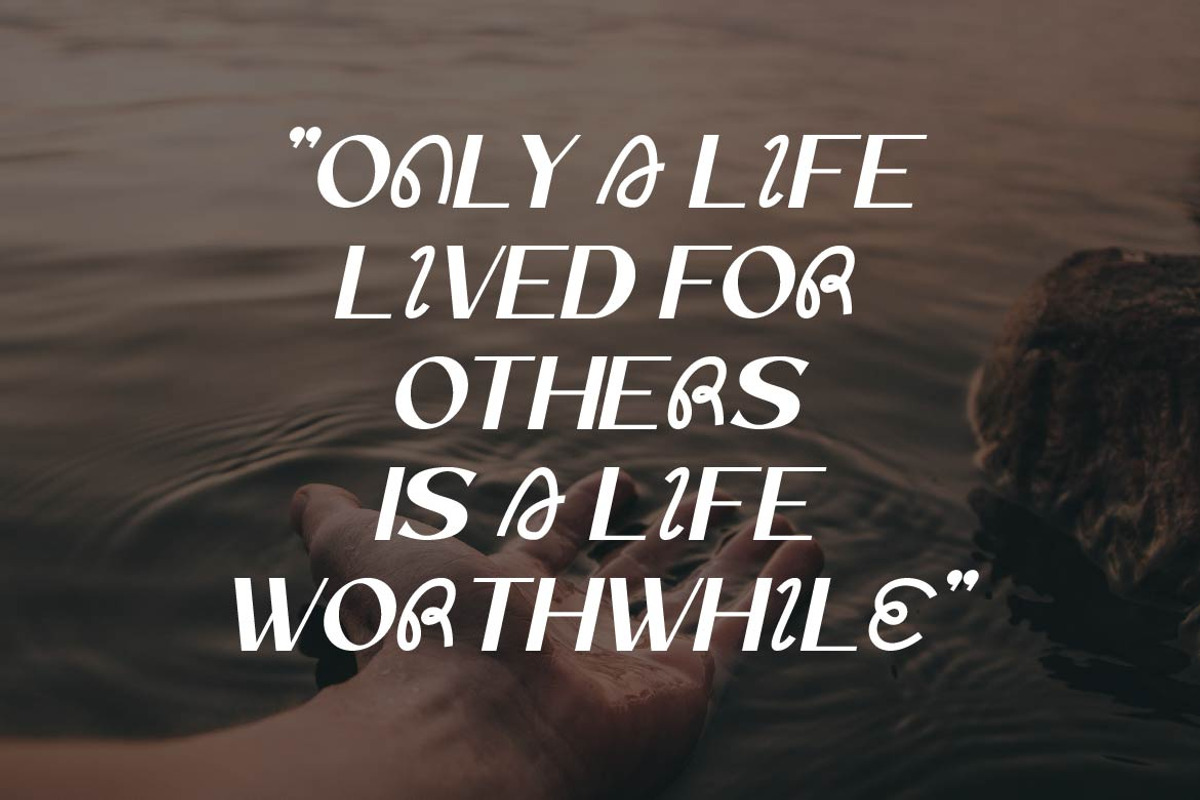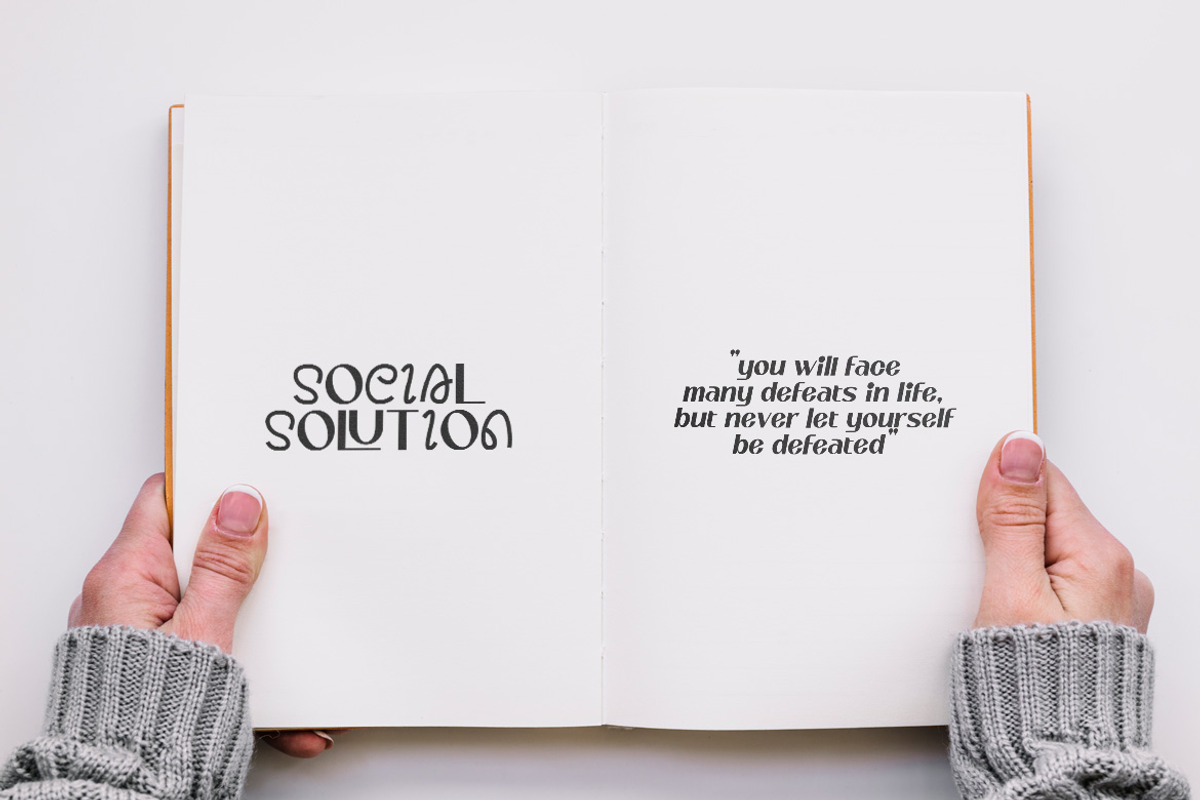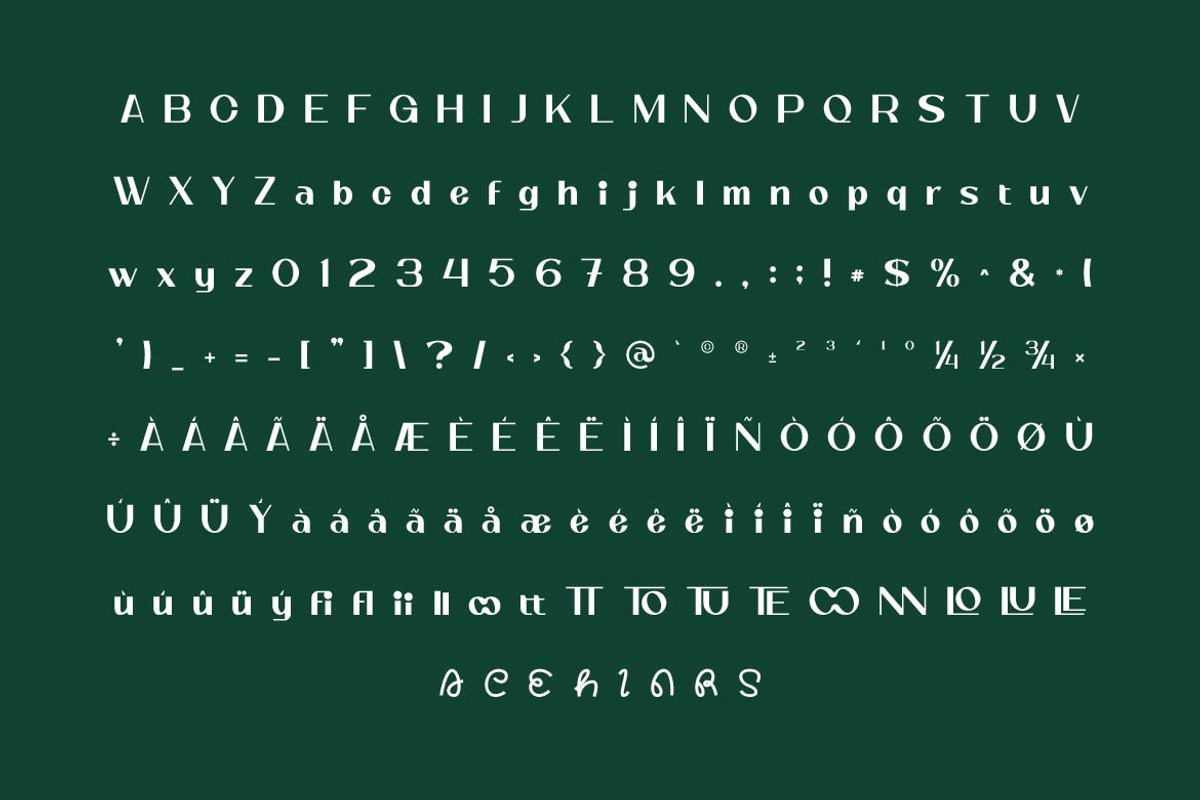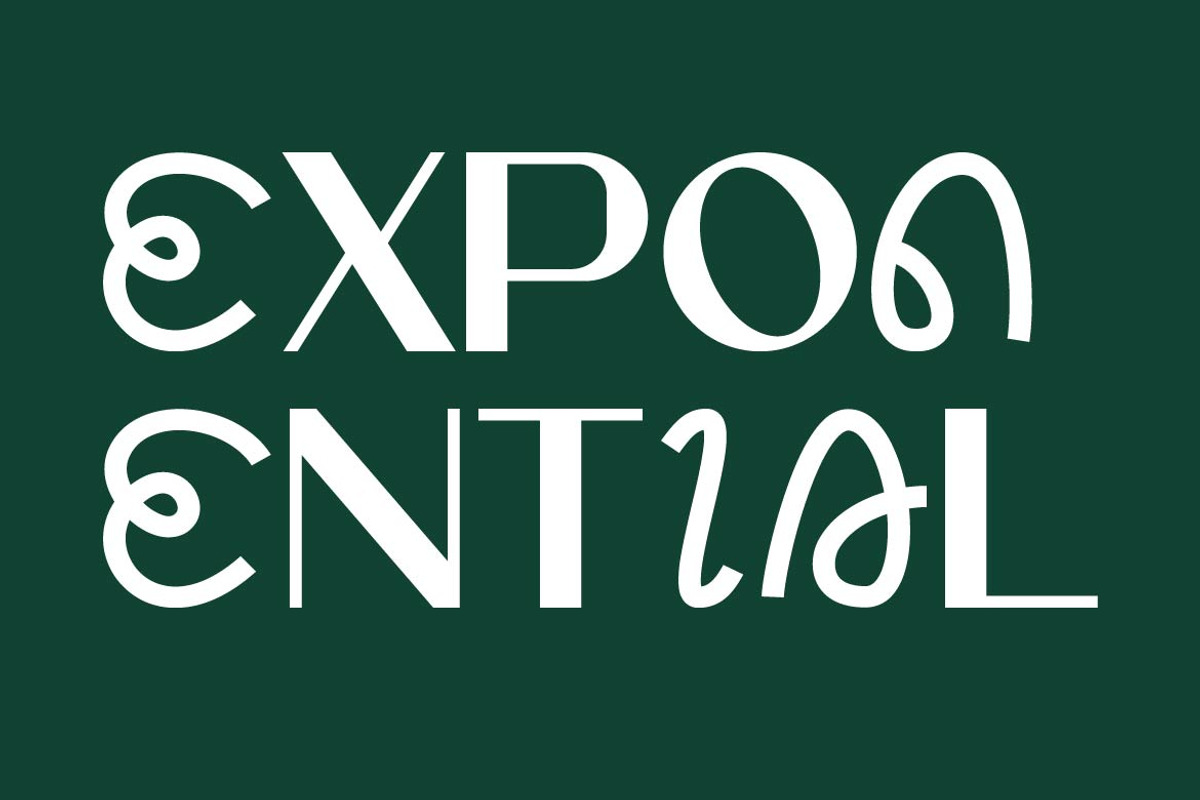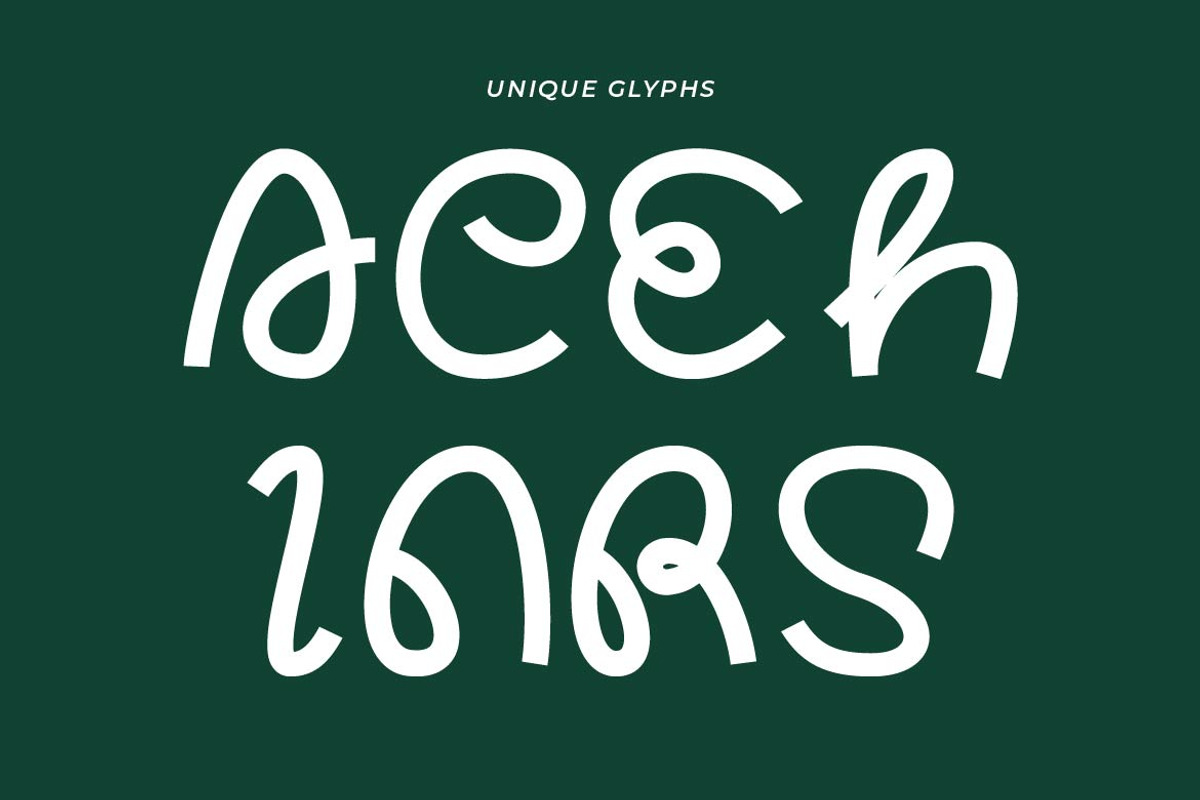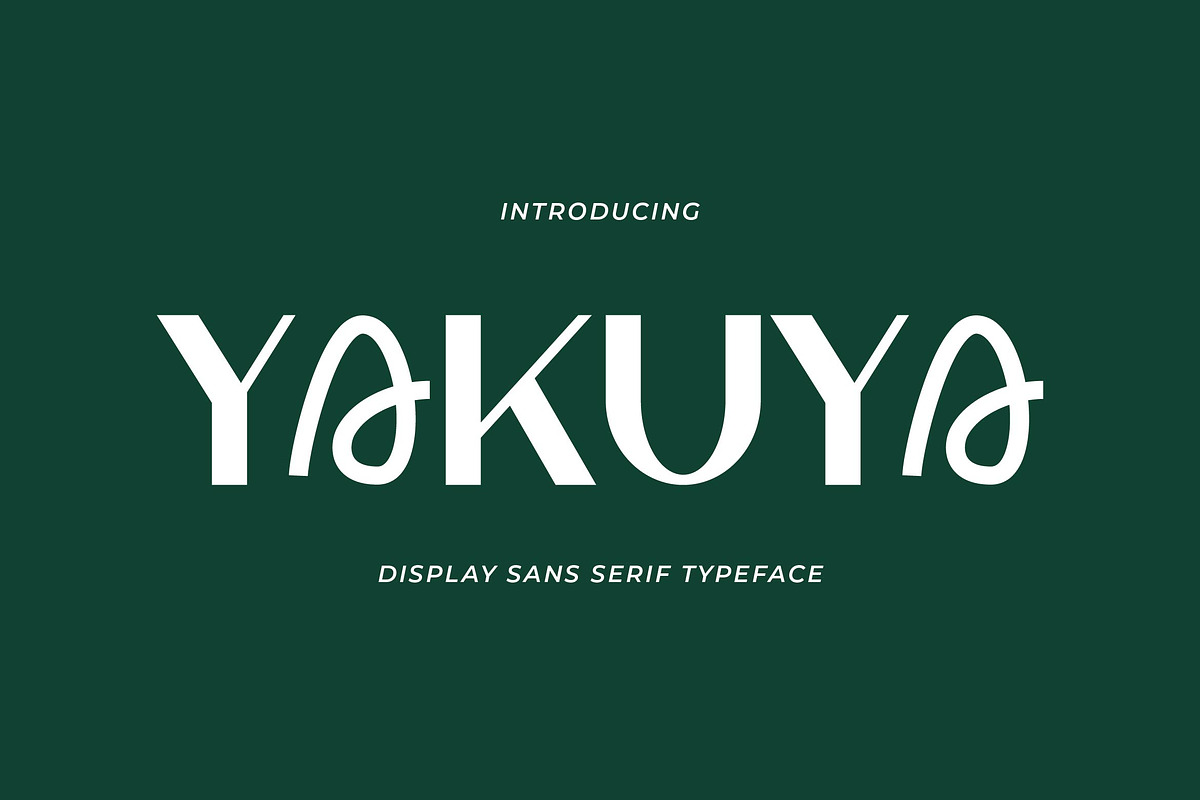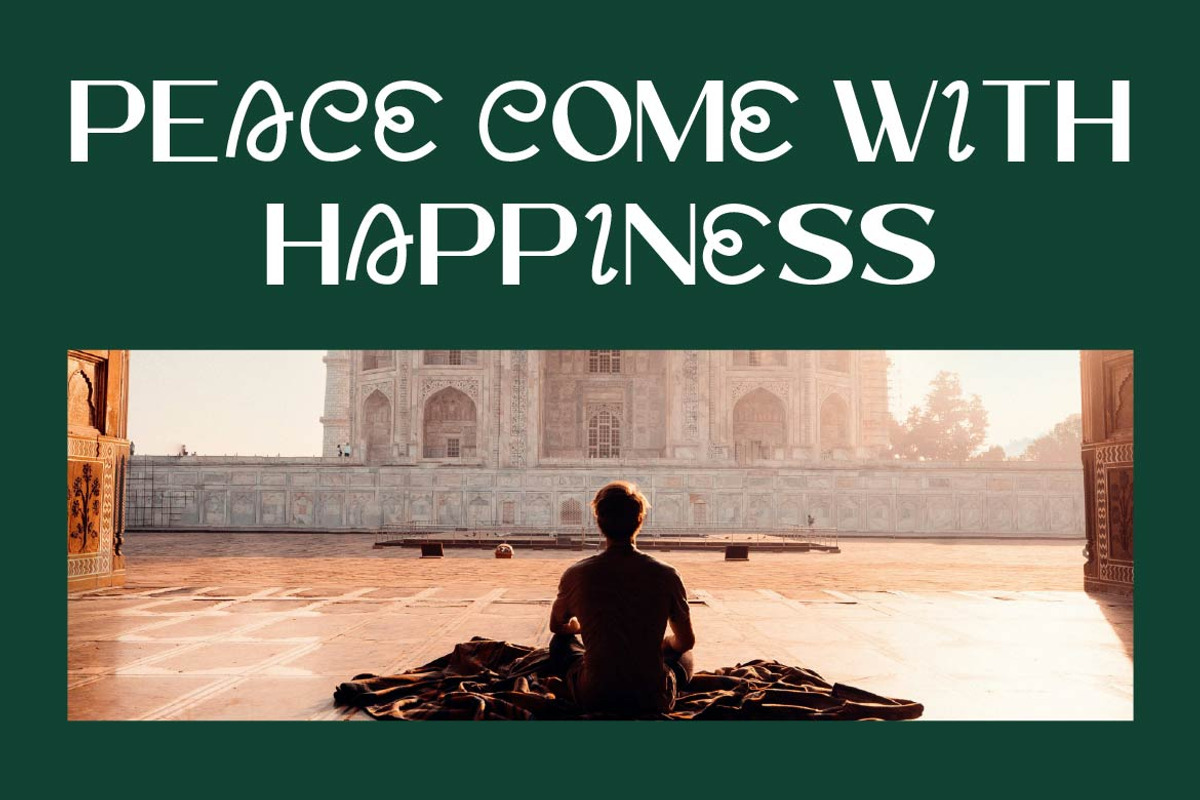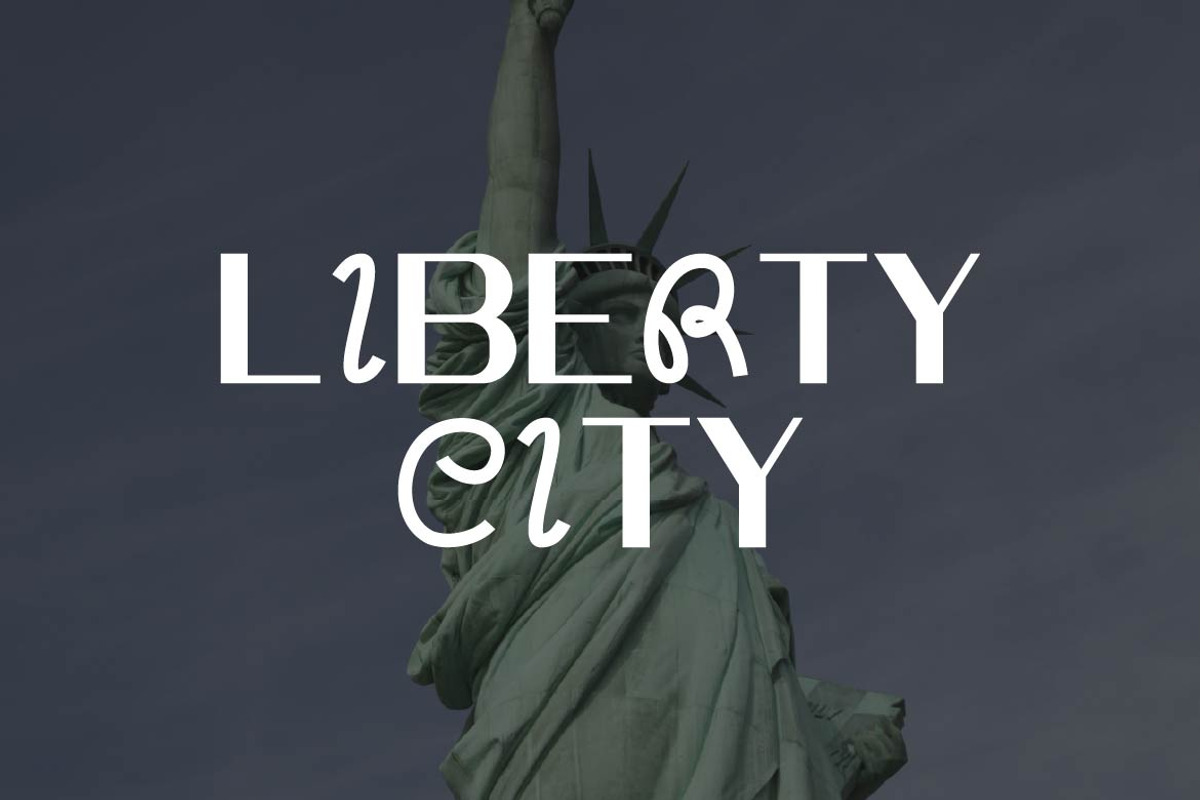
Yakuya - Creative Sans Display
Yakuya is a modern sans serif font that blends creativity with luxurious elegance. Featuring clean lines, refined curves, and distinctive character shapes, Yakuya is designed to bring a premium feel to logos, fashion branding, product packaging, editorials, and high-end digital projects.